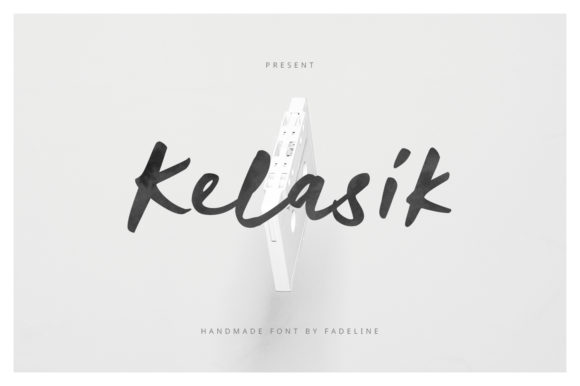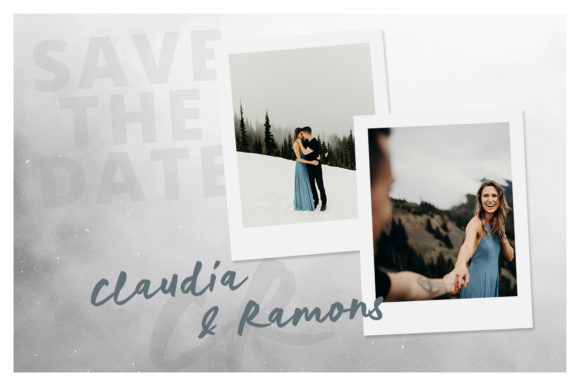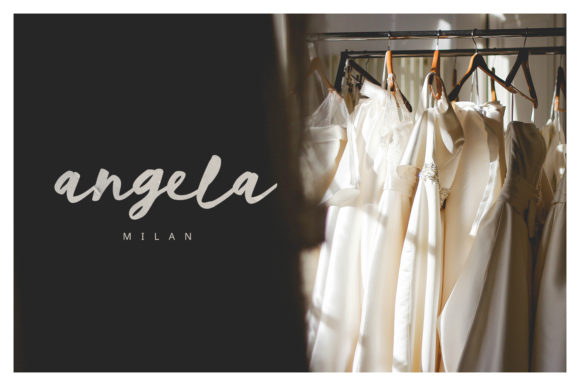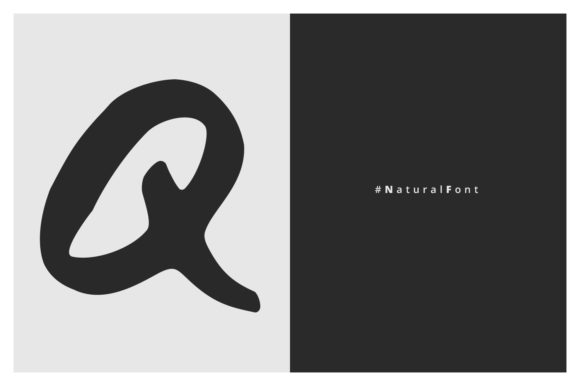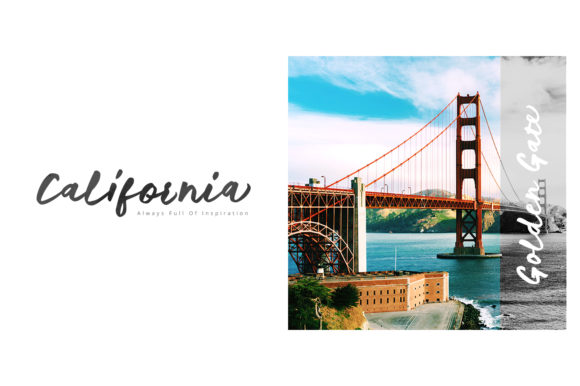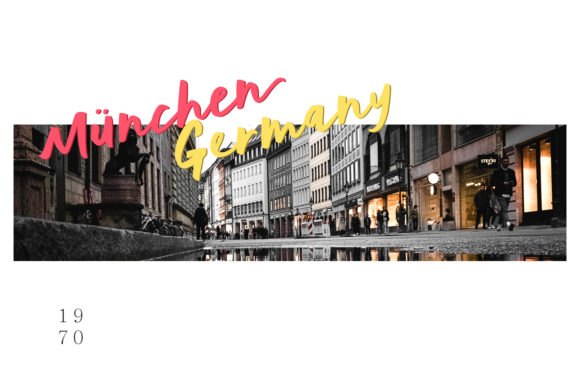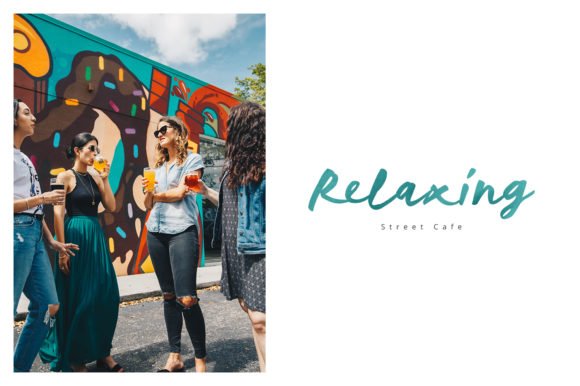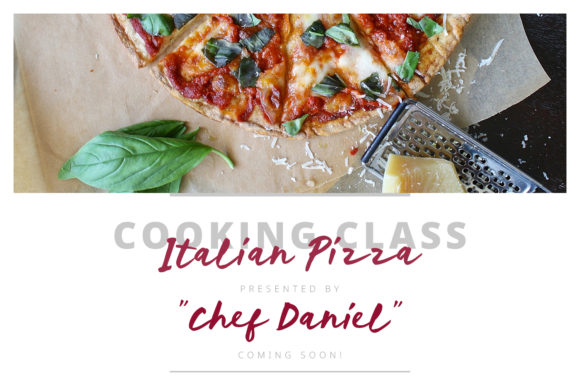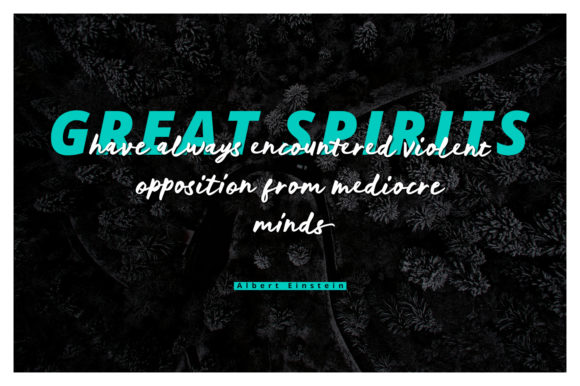
HomeScript FontsKelasik Font Script Fonts Kelasik Font FacebookXPinterestWhatsApp Kelasik Font Poster 2 Kelasik Font Poster 3 Kelasik Font Poster 4 Kelasik Font Poster 5 Kelasik Font Poster 6 Kelasik Font Poster 7 Kelasik Font Poster 8 Kelasik Font Poster 9 About Kelasik Font Kelasik is a fun and playful handwritten font with a cool twist. Get inspired by its authentic style! DOWNLOAD ON CREATIVE FABRICAThis font is sold and delivered by Creative Fabrica. Font Canyon may earn a commission if you buy through this link. People also explored Hidden Font Musicalina Font Vagentha Calligraphy Font Hinella Script Font Crumello Font Broyther Font The Bakery Font Javin Font Southwell Font 295 0 TagsKelasik Font Previous articleChellaras FontNext articleFloweress Font LEAVE A REPLY Cancel reply Comment: Please enter your comment! Name:* Please enter your name here Email:* You have entered an incorrect email address! Please enter your email address here Website: Save my name, email, and website in this browser for the next time I comment. Personal Use Free Sefiya Personal Use Free Read more about this font Bollado Personal Use Free Read more about this font BD Medled Personal Use Free Read more about this font Styledeep Personal Use Free Read more about this font BLOG Free Fonts Risk: Why Free Fonts Can Be Dangerous for Designers Free Fonts Risk: Why Free Fonts Can Be Dangerous for Designers Using free fonts is a common practice in web and graphic design. However, the... Using Fonts in Digital Marketing: Tips to Strengthen Your Brand Identity Where to Buy American Fonts Online in 2024 Fonts That Capture the Spirit of New York City